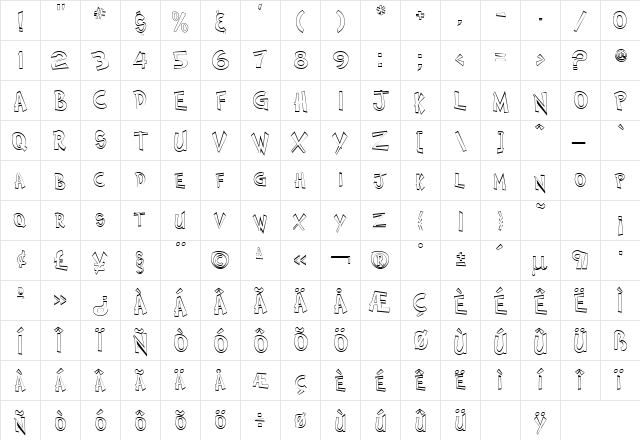
Comic Book Two Outline Regular
Design Context for Comic Book Two Outline Typeface
Comic Book Two Outline trades formality for fun, with bouncy, characterful letterforms that bring warmth and energy to any project.
Font Pairing: Pairs well with a rounded or humanist sans for body copy, maintaining the friendly tone without relying on Comic Book Two Outline to carry extended reading.
Pro Tip: Avoid using Comic Book Two Outline for long passages of text — it works best for headlines, labels, and short calls to action.